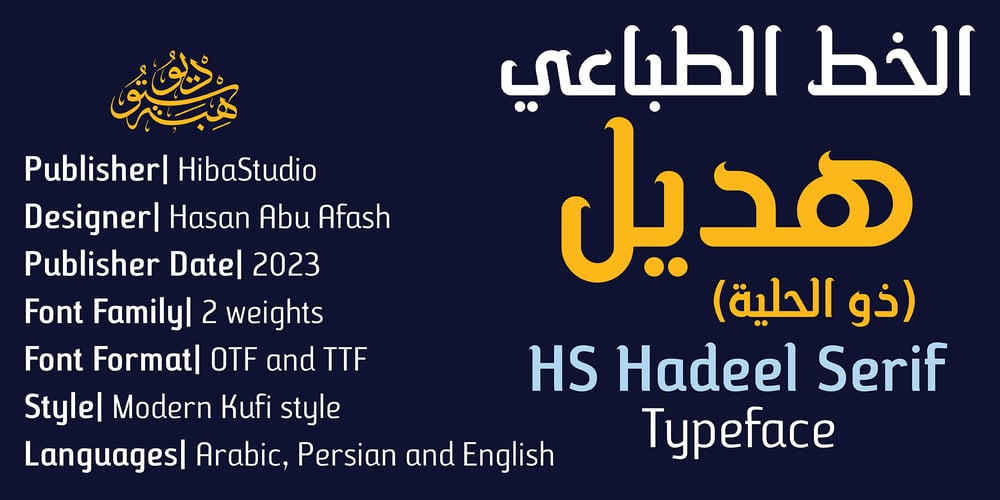
HS Hadeel Serif Font Family was designed by Hasan Abu Afash and published by Hiba Studio. HS Hadeel Serif contains 2 styles and family package options. HS Hadeel Serif is a versatile display typeface designed for use in titles and graphic projects that support Arabic, Persian and English. It draws inspiration from the modern kufi style and features a unique blend of sharp and curved lines that lend a beautiful and geometric structure to each character. Based on the original HS Hadeel typeface, HS Hadeel Serif includes a serif on some of its characters to provide a more traditional look. Two weights are available for this typeface: Regular and Bold. HS Hadeel Serif represents a valuable addition to Arabic typography, offering designers a visually striking and flexible option for their projects.